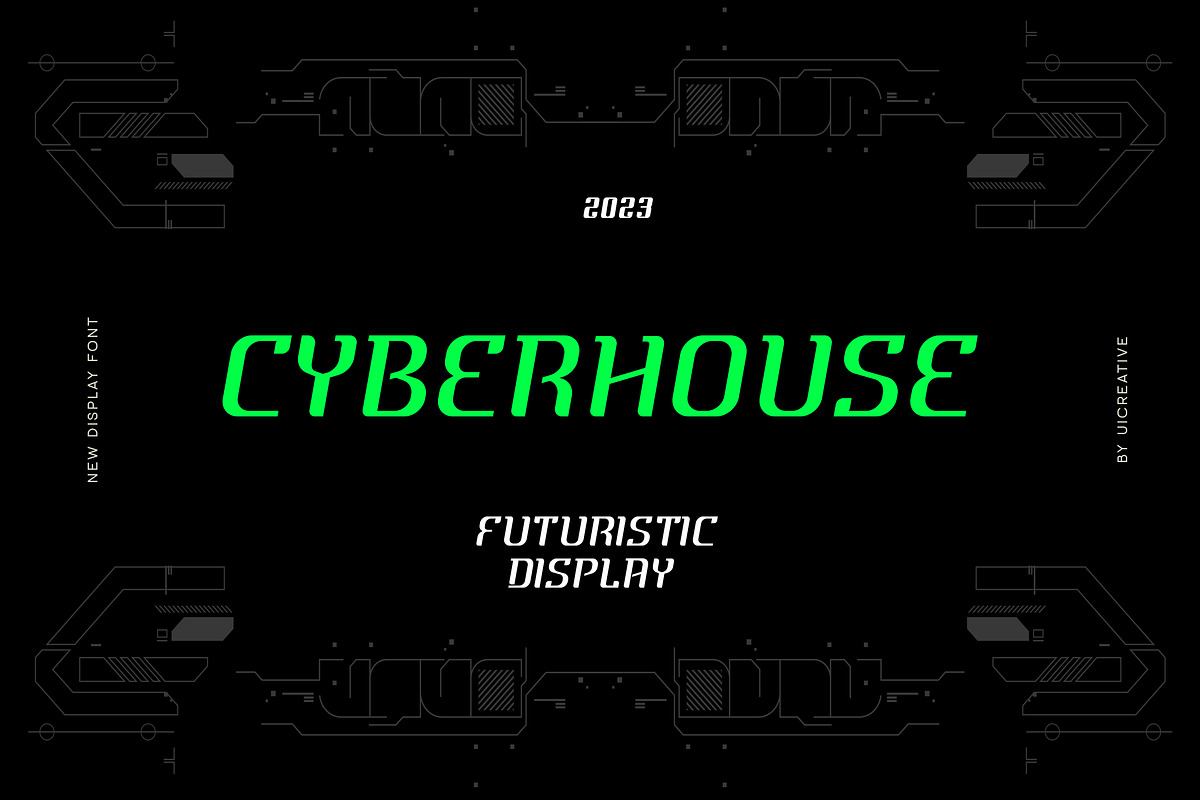
Cyberhouse Futuristic Display Font Free Download is a cutting-edge typeface inspired by the digital future, cyberpunk culture, and high-tech design. With its sharp angles, sleek lines, and bold personality, Cyberhouse is perfect for tech branding, sci-fi posters, esports logos, album covers, and futuristic UI projects.
This display font delivers maximum impact with a distinctly modern edge. Whether you're crafting visuals for gaming platforms, streaming content, or digital campaigns, Cyberhouse brings a strong, innovative tone to your typography.
Designers love Cyberhouse for its bold character, unique style, and versatility across digital media. Want to give your next design a boost from the future? Download Cyberhouse Futuristic Display Font Free Download and bring high-tech attitude to your visual storytelling.